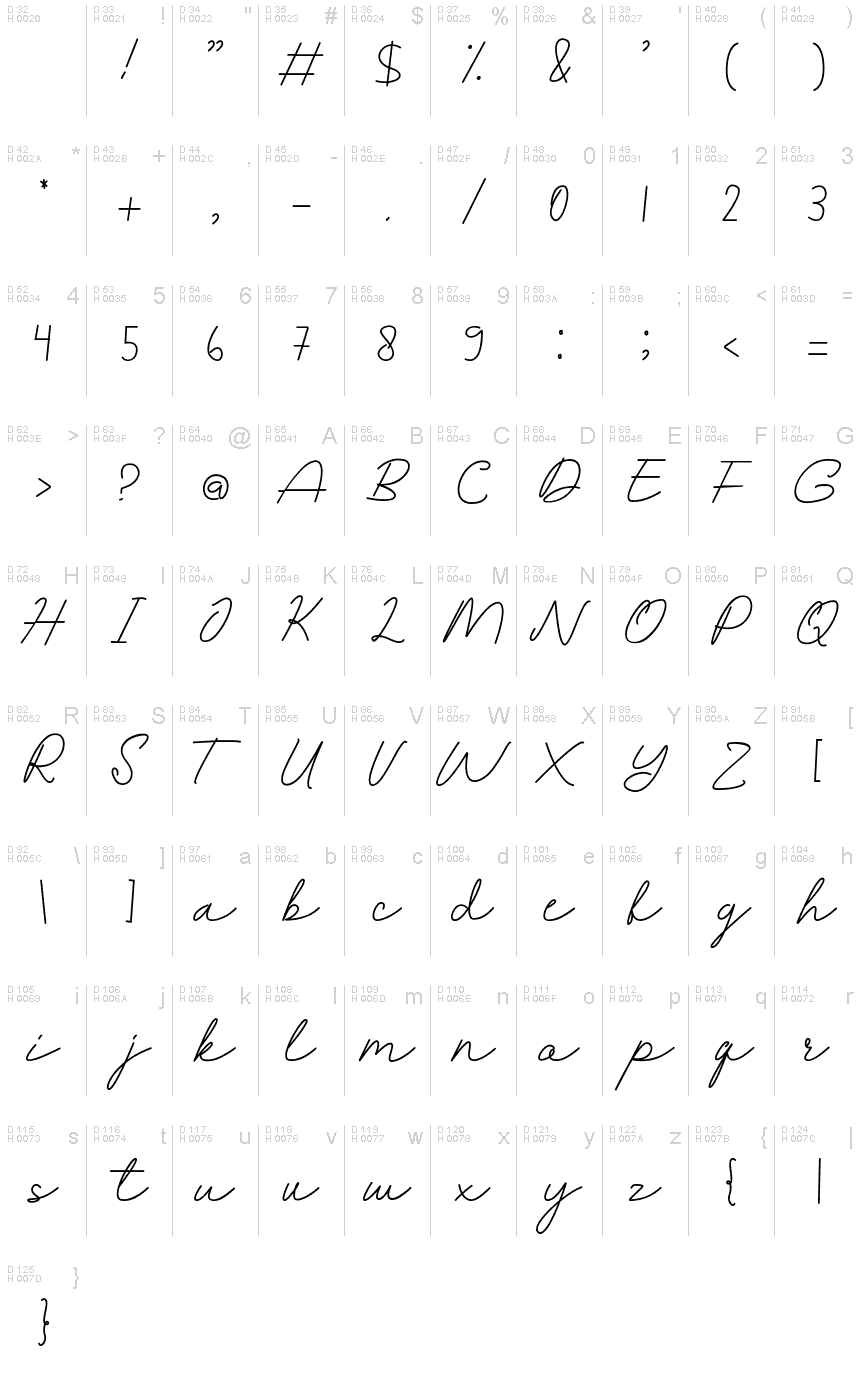
Jasmine
Jasmine is a beautiful extra-light handwritten font that exudes elegance and sophistication. Its delicate strokes and curves make it the perfect choice for wedding invitations, greeting cards, and other romantic projects. The thin lines of Jasmine's letterforms lend themselves well to delicate designs, while its effortless script style makes it an ideal choice for branding projects that want to convey a sense of luxury. Whether you're creating a logo for a high-end boutique or designing packaging for a luxury product, Jasmine will add just the right touch of refinement to your project.